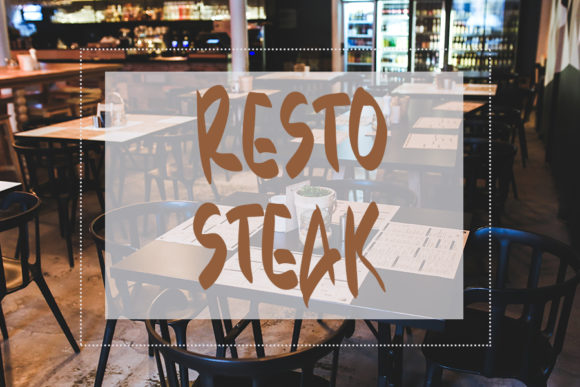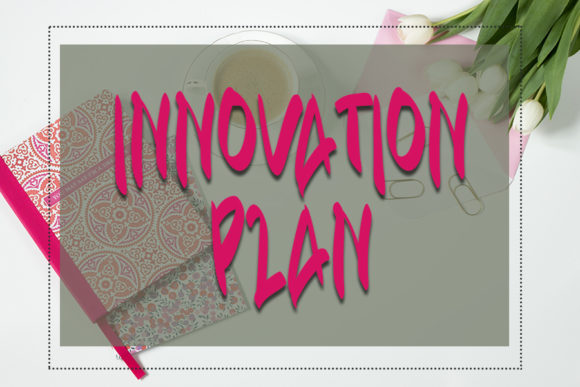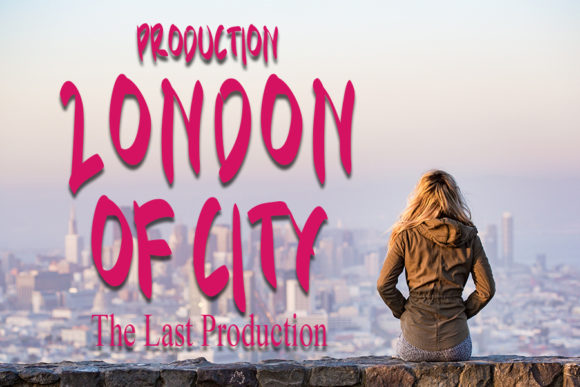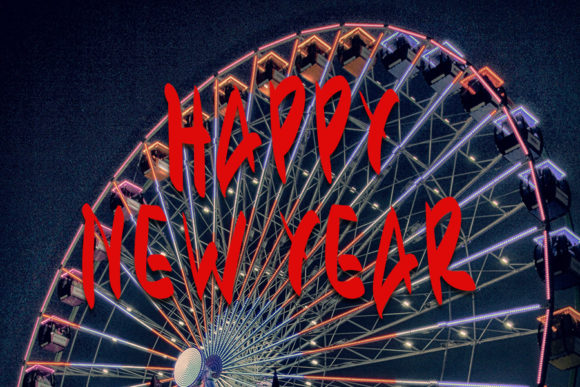
Introducing Happy Sunday Font: The Perfect Handwritten Font for Your Designs
Are you tired of using the same old fonts for your designs? Do you want to add a touch of personality and friendliness to your creations? Look no further than Happy Sunday Font, a bold and friendly handwritten font that’s perfect for making original and outstanding designs.
What is Happy Sunday Font?
Happy Sunday Font is a unique and eye-catching handwritten font that’s designed to bring a smile to your face. With its bold and playful style, this font is perfect for designers and crafters who want to add a personal touch to their work. Whether you’re creating a logo, a greeting card, or a social media post, Happy Sunday Font is the perfect choice.
Key Features of Happy Sunday Font
- Bold and Friendly Style: Happy Sunday Font has a bold and friendly style that’s perfect for making a statement. Its playful and energetic vibe is sure to grab attention and leave a lasting impression.
- Handwritten with Love: This font is carefully crafted with love and attention to detail, giving it a personal and human touch that’s hard to find in digital fonts.
- Perfect for Designs: Happy Sunday Font is designed specifically for designers and crafters who want to create original and outstanding designs. Its unique style and versatility make it perfect for a wide range of projects.
- Easily Readable: Despite its bold style, Happy Sunday Font is easily readable, making it perfect for use in a variety of contexts, from digital media to print materials.
Why Choose Happy Sunday Font?
There are many fonts to choose from, but Happy Sunday Font stands out from the rest. Here are just a few reasons why:
- Unique Style: Happy Sunday Font has a unique and distinctive style that’s sure to set your designs apart from the rest.
- Versatility: This font is versatile and can be used in a wide range of projects, from logos and branding to greeting cards and social media posts.
- High-Quality: This font is carefully crafted to ensure high-quality and consistency, giving you professional-looking results every time.
Design Ideas with Happy Sunday Font
Happy Sunday Font is perfect for a wide range of design projects. Here are a few ideas to get you started:
- Logos and Branding: Use Happy Sunday Font to create a bold and memorable logo for your business or brand.
- Greeting Cards: Add a personal touch to your greeting cards with Happy Sunday Font.
- Social Media Posts: Use Happy Sunday Font to create eye-catching social media posts that stand out from the crowd.
- Invitations: Create unique and stylish invitations for parties, weddings, and other special events.
In conclusion, Happy Sunday Font is a bold and friendly handwritten font that’s perfect for designers and crafters who want to add a personal touch to their work. With its unique style, versatility, and ease of use, this font is sure to become a favorite in your design arsenal. So why wait? Download Happy Sunday Font today and start creating original and outstanding designs that bring a smile to people’s faces.